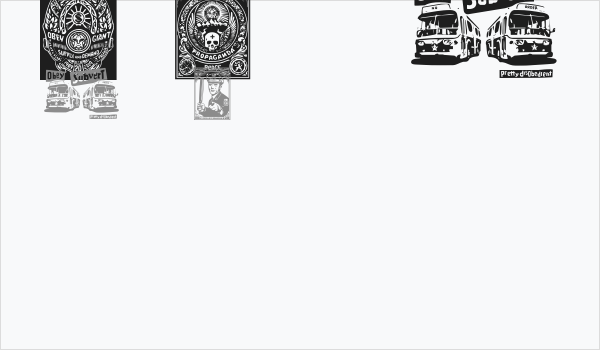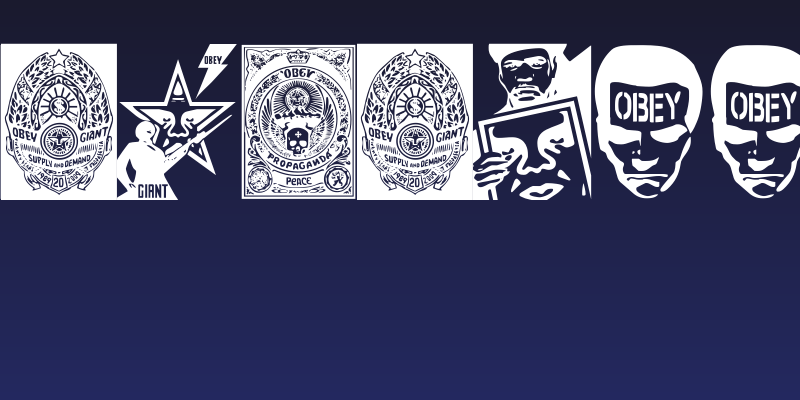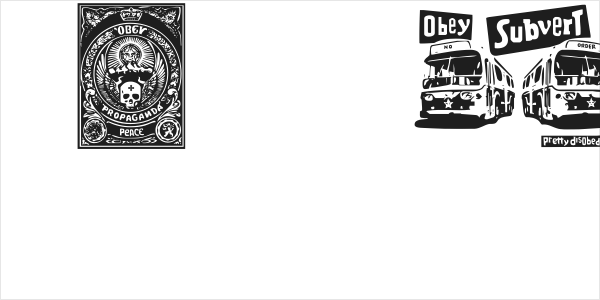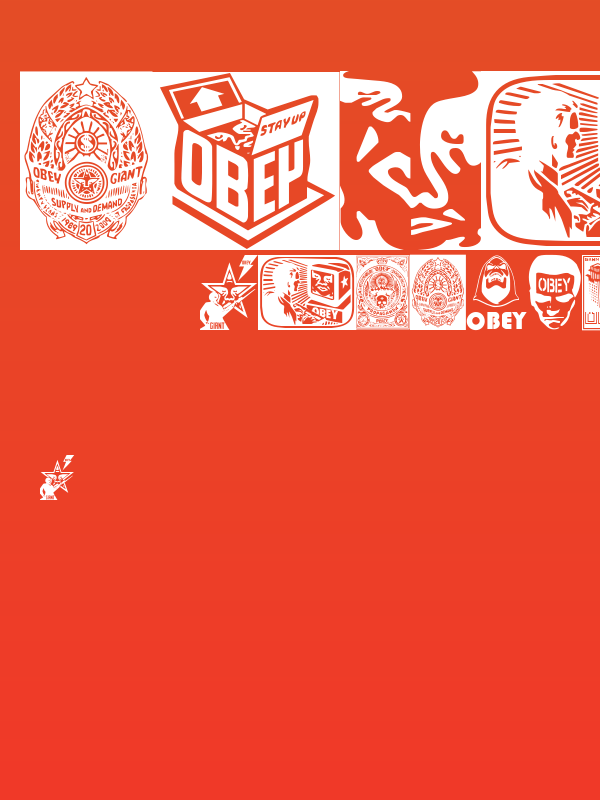
ObeyPotpourriCaps Font
ObeyPotpourriCaps Description
A decorative display set featuring bold, high-contrast black and white illustrations, icons, and graphic motifs inspired by street art and propaganda posters. The glyphs are not traditional letters but rather a collection of stylized images and logos, each with a unique, visually impactful design.
| Overall Style | Decorative, Urban, Graphic, Street Art |
| Use Case | Logos, Posters, Decorative elements, Branding |
| Proposed Projects | Posters, album covers, streetwear branding, stickers, urban art projects, zines. |